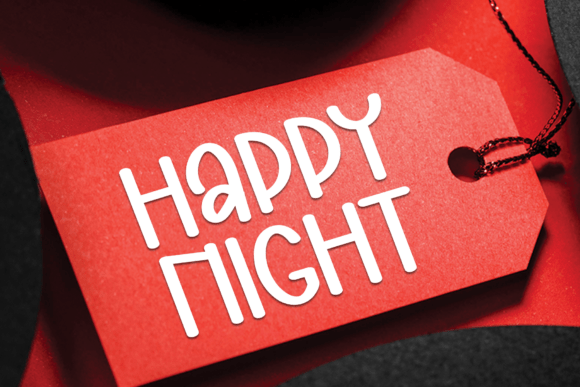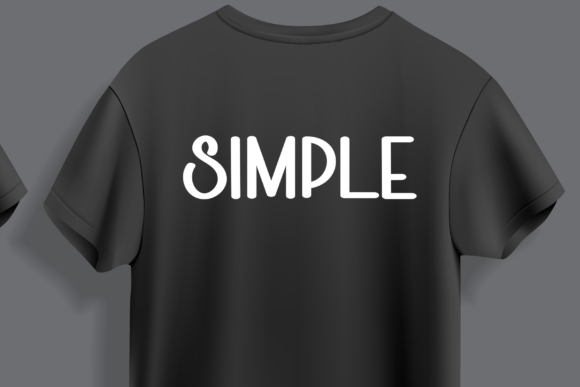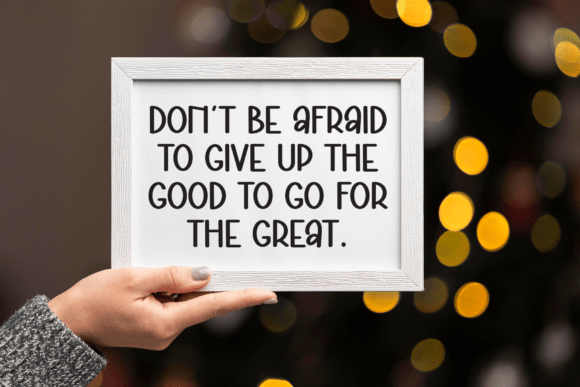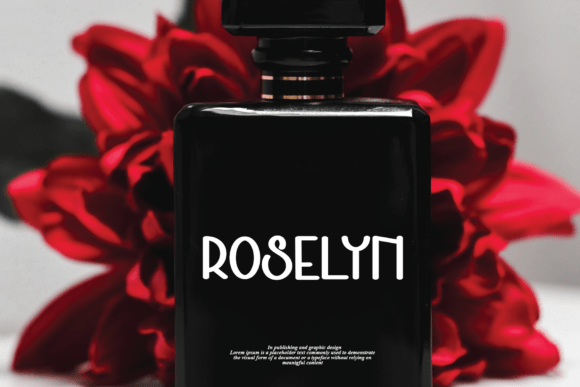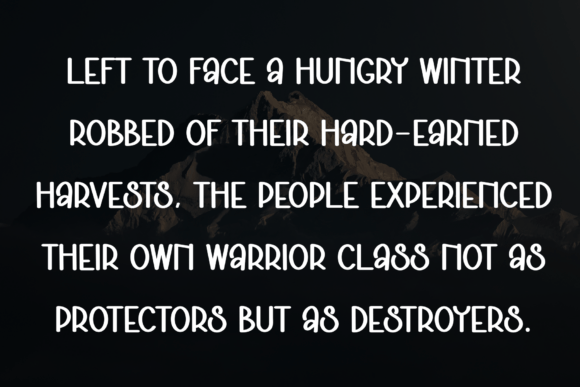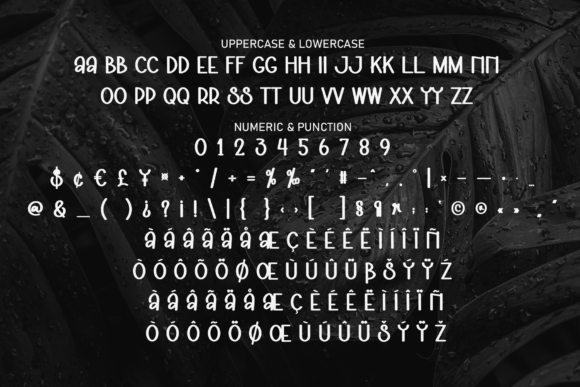
Unlocking Creativity with Black Background Font: A Comprehensive Guide
In the realm of typography, fonts play a pivotal role in shaping the visual identity of a brand, product, or creative project. Among the myriad of font styles available, the Black Background Font stands out for its unique blend of boldness, creativity, and versatility. This article aims to delve deep into the characteristics, applications, and benefits of using the Black Background Font, particularly for designers and crafters looking to elevate their visual projects.
What is Black Background Font?
Black Background Font is a bold and creative sans-serif display font that boasts a casual handwritten vibe. Its design is distinguished by rounded characters and a clean structure, making it an excellent choice for a wide range of applications, from modern branding and poster designs to merchandise and playful headlines. Despite its name suggesting a preference for dark backgrounds, this font is remarkably versatile and can make a significant impact on both dark and light backgrounds.
Key Features of Black Background Font
• Bold and Creative: The font’s bold nature makes it perfect for grabbing attention, while its creative flair adds a unique touch to any design.
• Sans-Serif with a Handwritten Vibe: The sans-serif design offers a clean and modern look, while the handwritten vibe adds warmth and personality.
• Rounded Characters: The rounded characters contribute to its friendly and approachable feel, making it suitable for brands and projects that aim to convey a sense of warmth and accessibility.
• Clean Structure: The clean structure ensures that the font remains clear and legible, even in smaller sizes or when used in more complex designs.
• Versatility: One of the font’s most significant advantages is its versatility. It can be used on both dark and light backgrounds, making it a valuable addition to any designer’s toolkit.
Applications of Black Background Font
The Black Background Font’s adaptability and aesthetic appeal make it suitable for a variety of applications:
• Modern Branding: For businesses looking to establish a modern yet approachable brand identity, this font can be a great choice for logos, wordmarks, and marketing materials.
• Poster Designs: Its bold and creative nature makes it perfect for posters, flyers, and other promotional materials that need to stand out.
• Merchandise: From t-shirts to mugs, the Black Background Font can add a playful and eye-catching element to merchandise designs.
• Playful Headlines: For websites, blogs, and digital content, it can be used to create engaging headlines that draw readers in.
For designers and crafters, the Black Background Font offers several benefits:
• Personality and Clarity: It adds a unique personality to designs while maintaining clarity and legibility.
• Ease of Use: Its versatility and adaptability make it easy to incorporate into a wide range of projects.
• Time-Saving: With a font that can be used across various applications and backgrounds, designers can save time and streamline their workflow.
• Increased Engagement: The font’s creative and playful nature can help increase engagement and make designs more memorable.
The Black Background Font is a powerful tool for designers and crafters looking to add a bold, creative, and versatile element to their projects. Its unique blend of a casual handwritten vibe with a clean sans-serif structure makes it an excellent choice for a wide range of applications. Whether you’re working on modern branding, poster designs, merchandise, or playful headlines, this font can help you achieve your design goals with ease. By incorporating the Black Background Font into your typography arsenal, you can unlock new creative possibilities and take your designs to the next level.